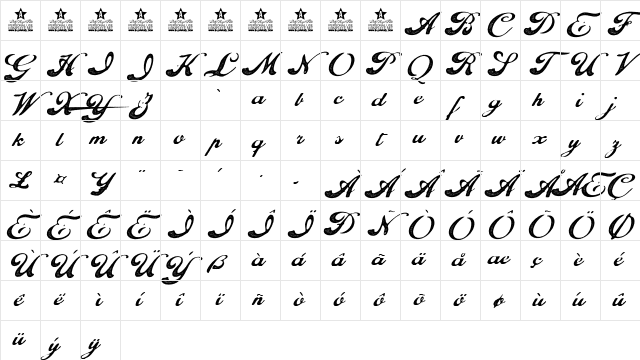
California Personal Use Regular Free Font
California Personal Use Regular
Foundry: Billy Argel
Designer: Billy Argel
Design Context for California Personal Use
California Personal Use is a composed and adaptable typeface that performs quietly and consistently across a wide range of design contexts.